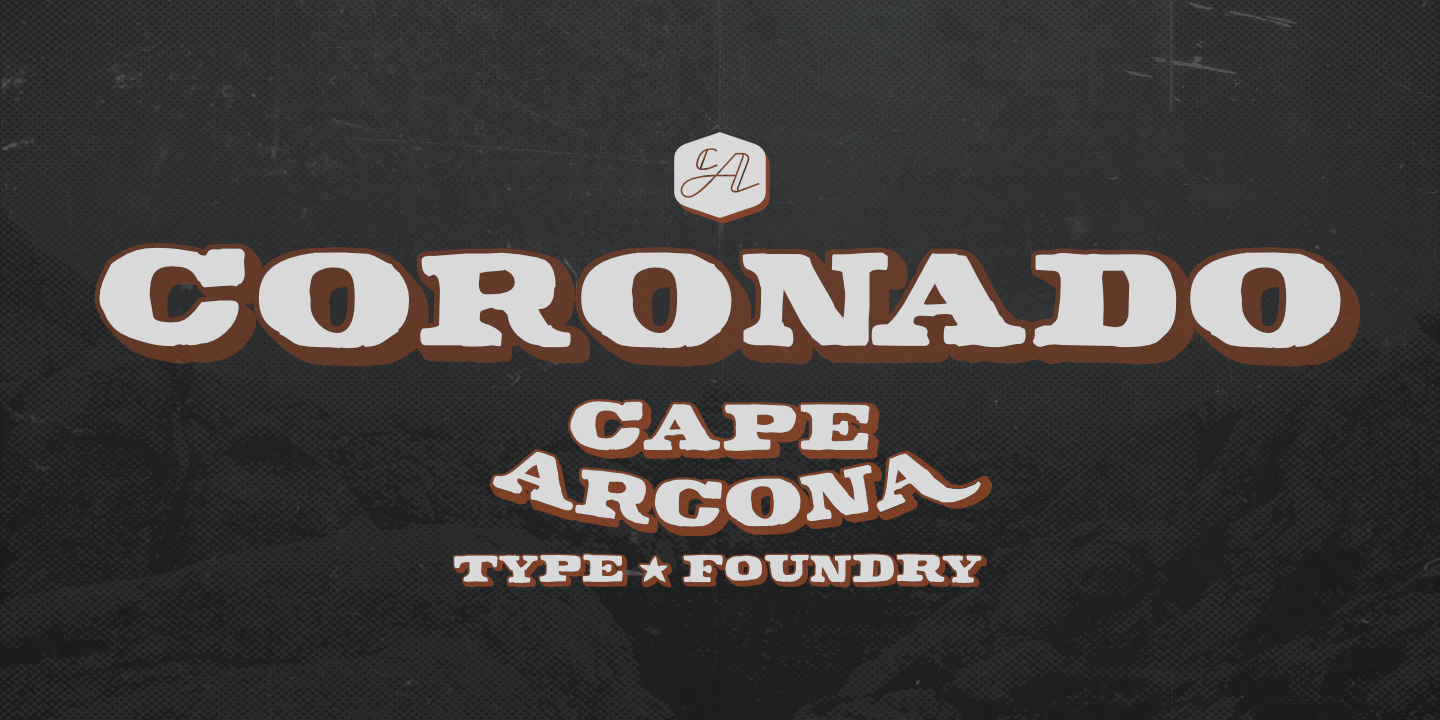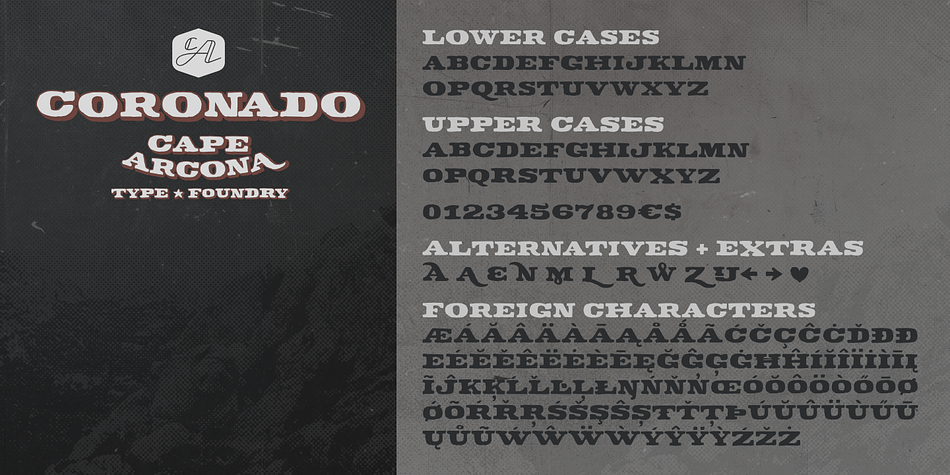
CA Coronado
CA Coronado is a western and display slab font family. This typeface has two styles and was published by Cape Arcona Type Foundry.
As a display typeface CA Coronado is suitable for logotypes and headlines. We thought about signage for block houses in forests and western style bars or BBQs. CA Coronado comes in two styles with a Regular and a Shadow style. ’Shadow’ can be used on top with Regular’ as a filling.
Upper- and lower-case letters looks to be the same at first sight, but are slightly different in their outlines.